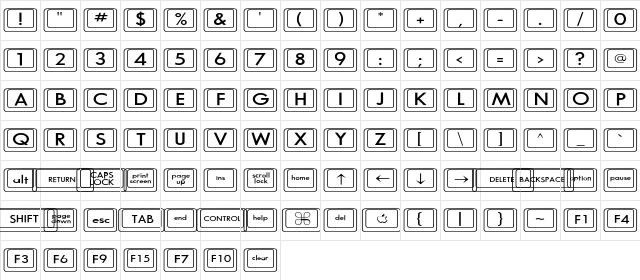
Compkey2 Wide Regular
Design Context for Compkey2 Wide Typeface
Compkey2 Wide takes a measured approach to typography — its balanced proportions and neutral character make it a reliable workhorse for both digital and print work.